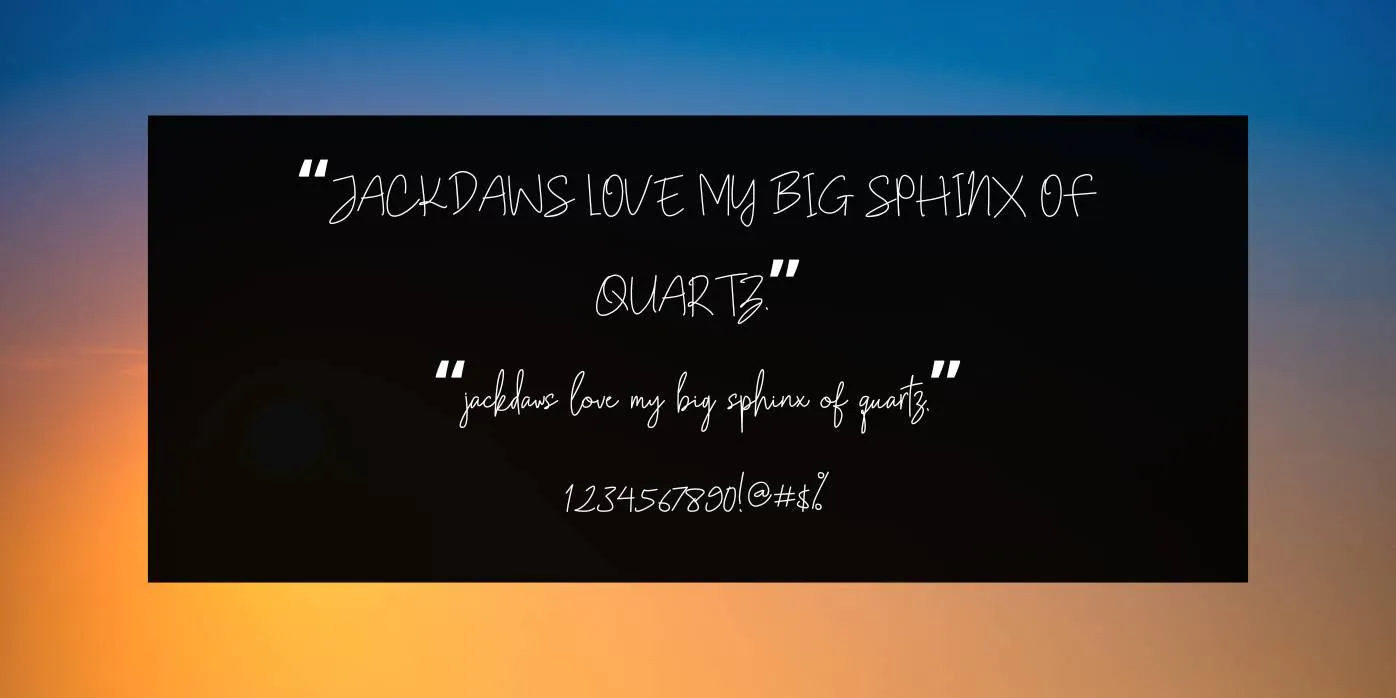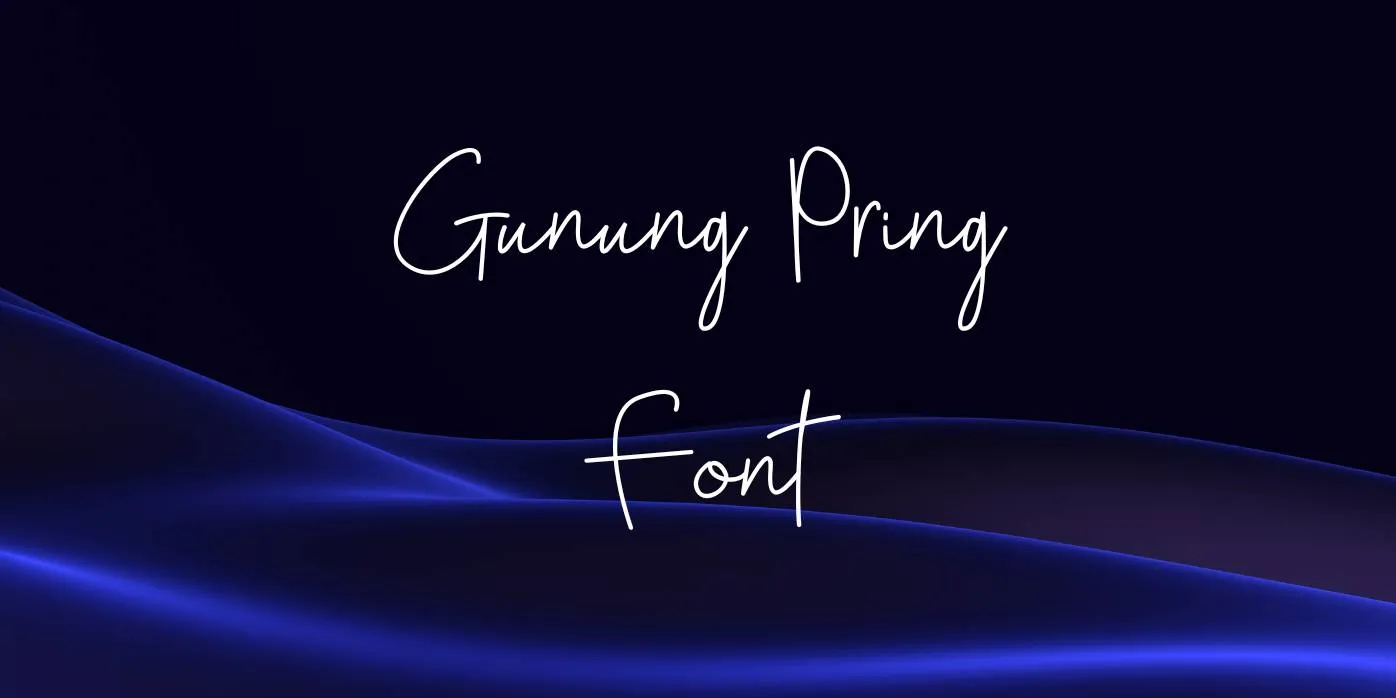
Gunung Pring Font
It is a very unique and amazing font named Gunung Pring Font. This font is designed by Zuzulgo Studios in 1996. It is a very famous handwritten font and gives a very attractive look to your projects. It is stylish and has a very modern look.
The pattern nature of this font is regular and MAC style follows by it is Bold. Unicode supported 2.0 BMP only. You can also use it for pairing with other fonts like angelina font to give a more attractive look to your projects. Copy-paste function is also easy for this font.
It can be used for advertisement purposes on a huge level. You can design websites or graphics by using them. This typeface is considered a very good font for all types of printing materials. All types of personal and commercial projects can be made by using it.
Can I use the Gunung Pring font on its website? Yes, it is a very stunning handwritten font and can be used to make so many different websites and graphic designs. What type of font is Gunung Pring? It is a very amazing typeface and easy to read it gives a very attractive look because of its thin lines and texture.